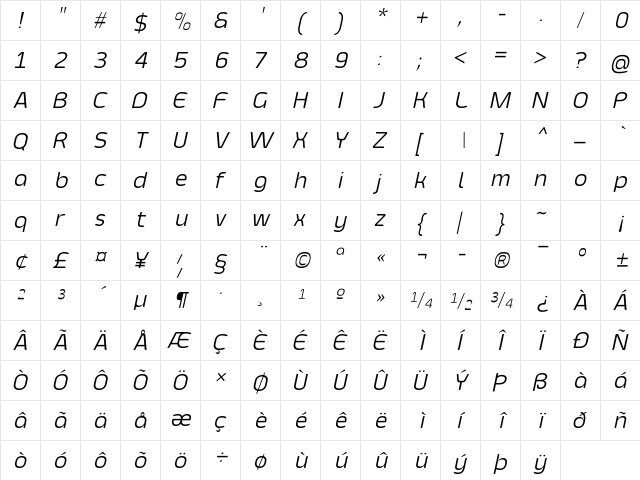
Smoolthan Thin
| Designer | Situjuh Nazara |
Design Context for Smoolthan Typeface
Smoolthan takes a measured approach to typography — its balanced proportions and neutral character make it a reliable workhorse for both digital and print work. The delicate stroke weight brings airiness and refinement to layouts.